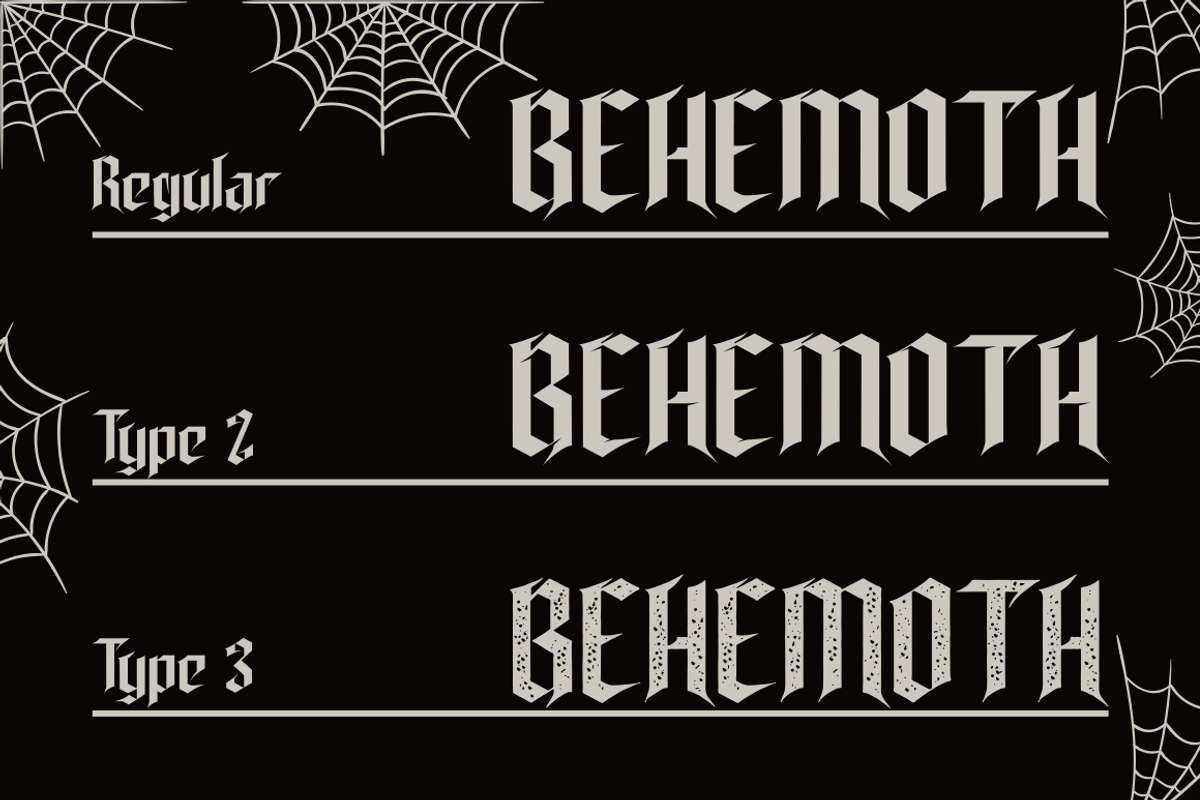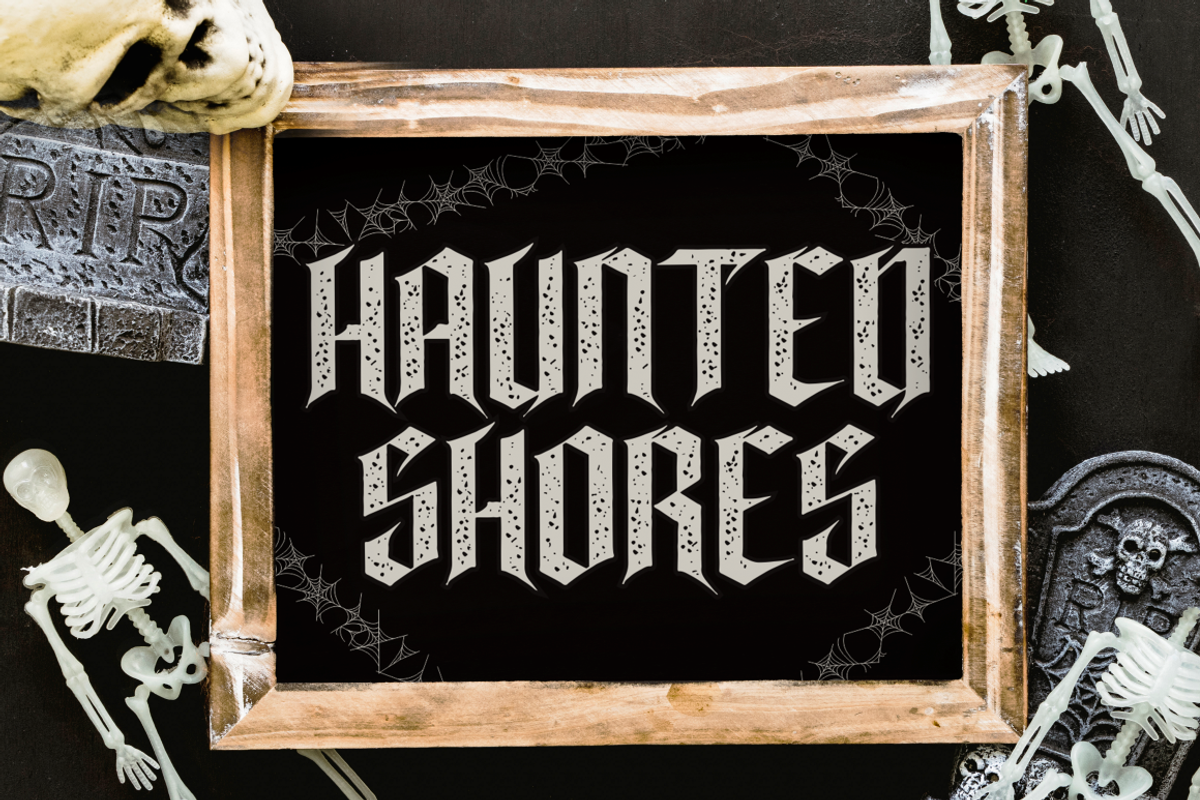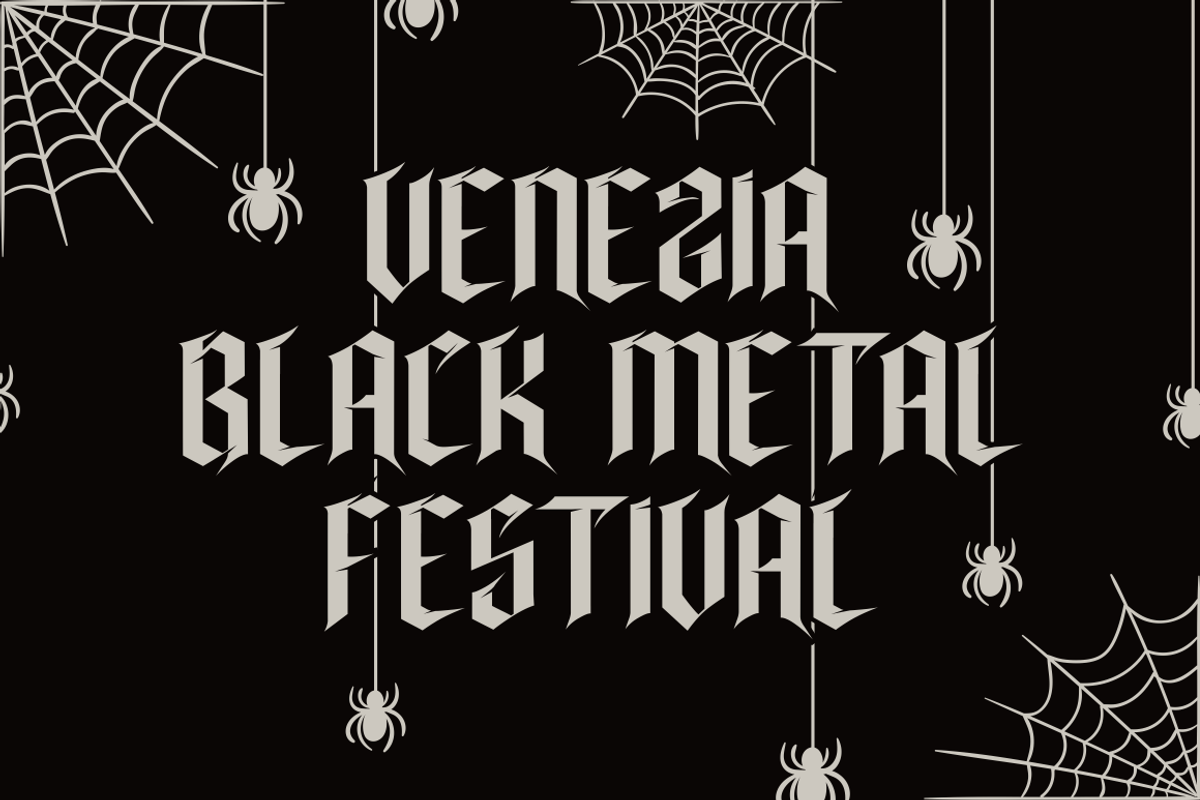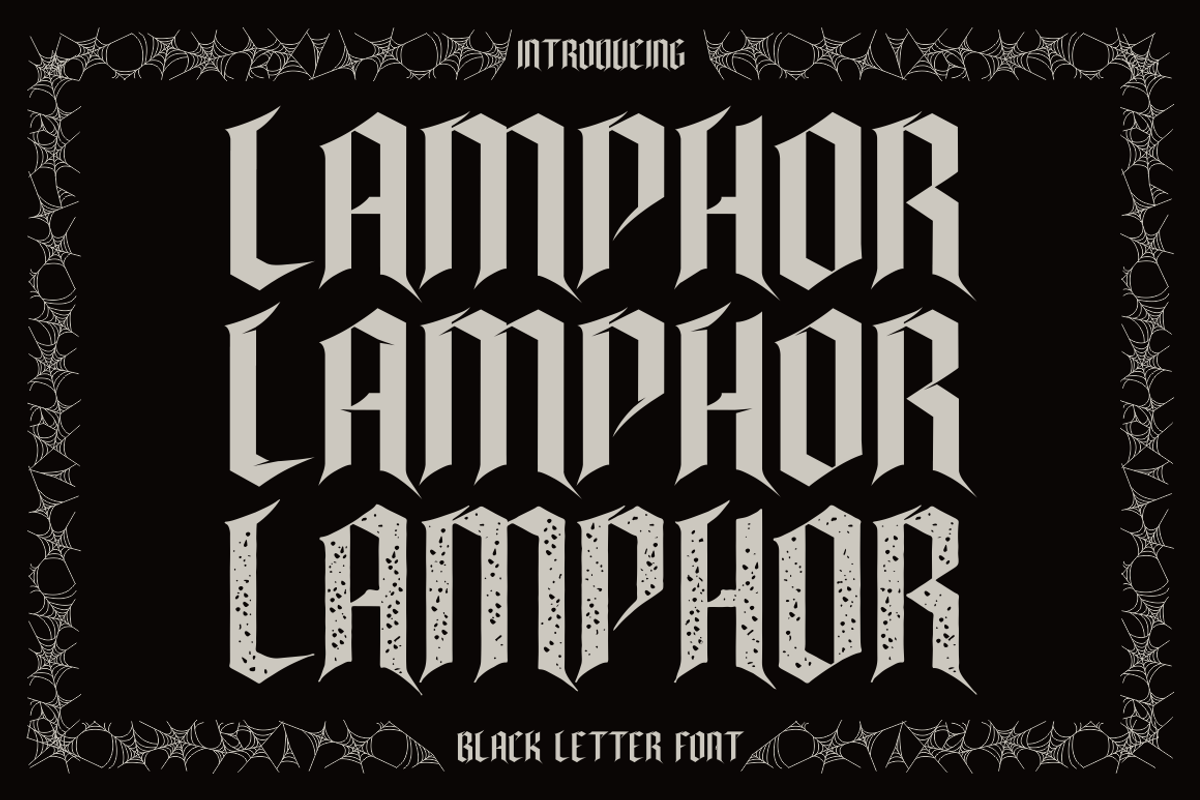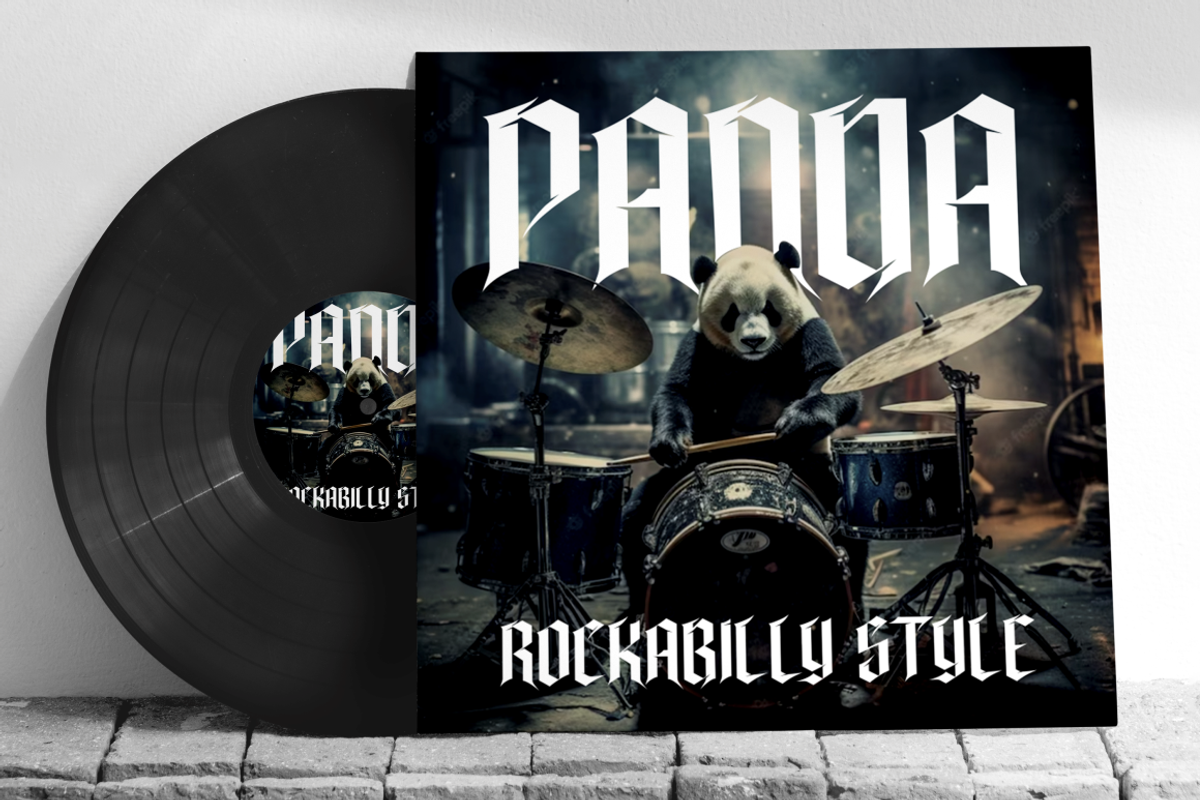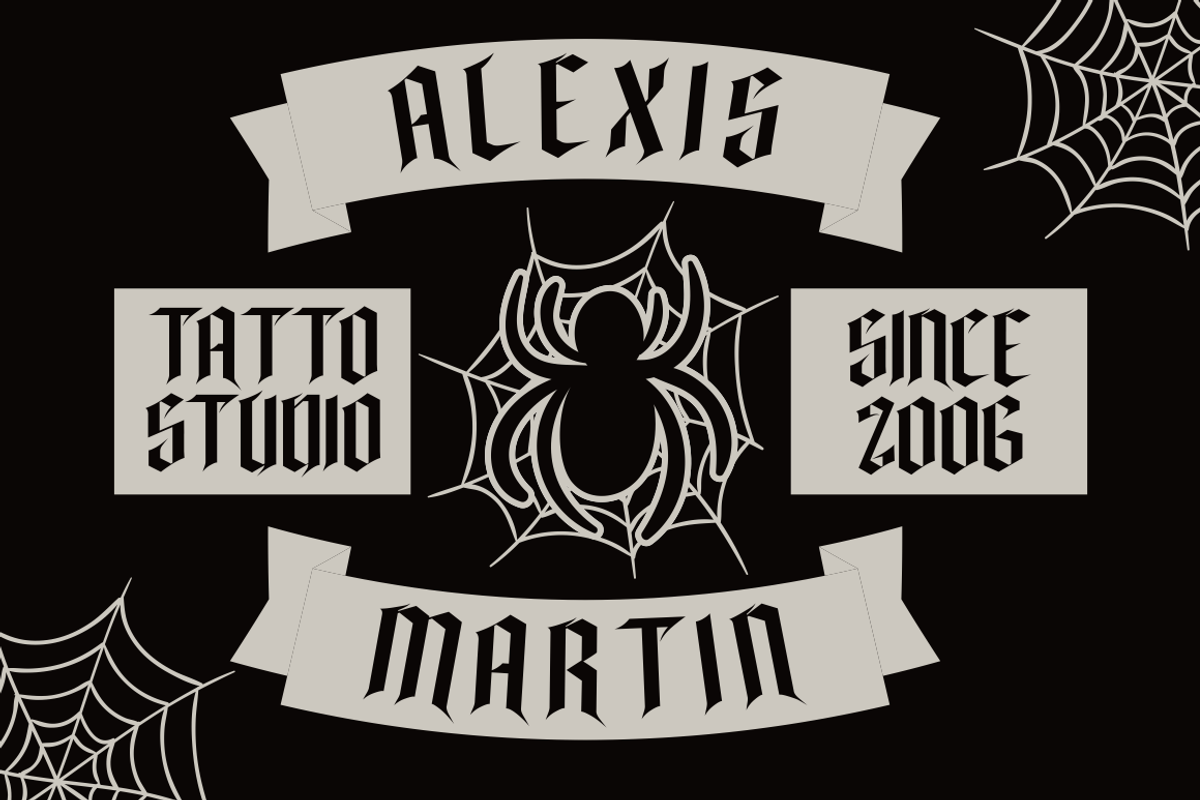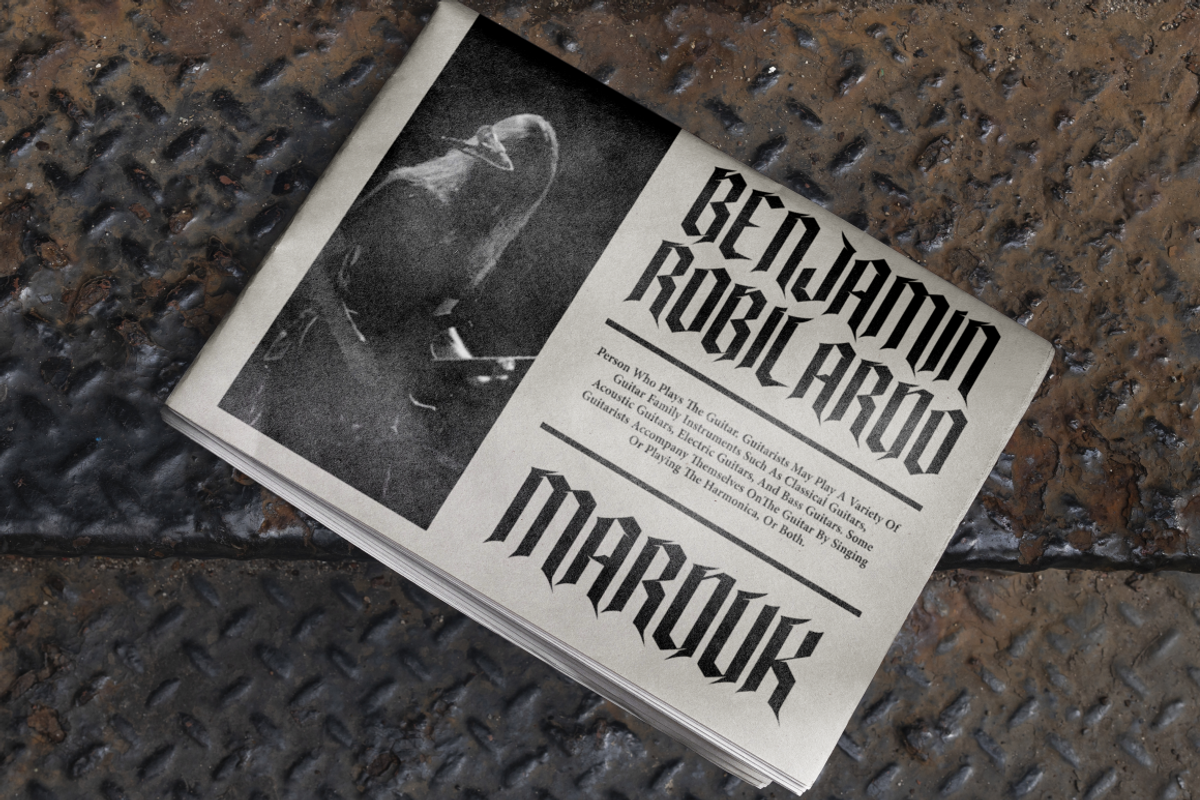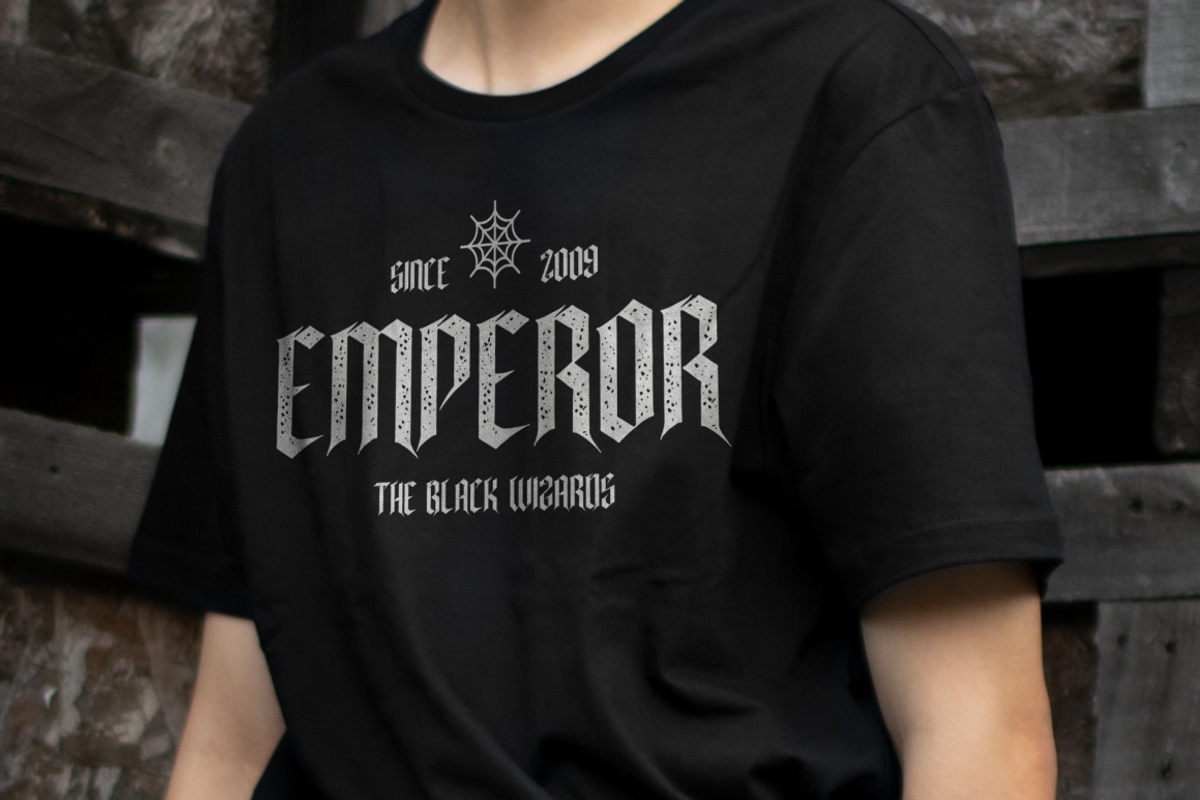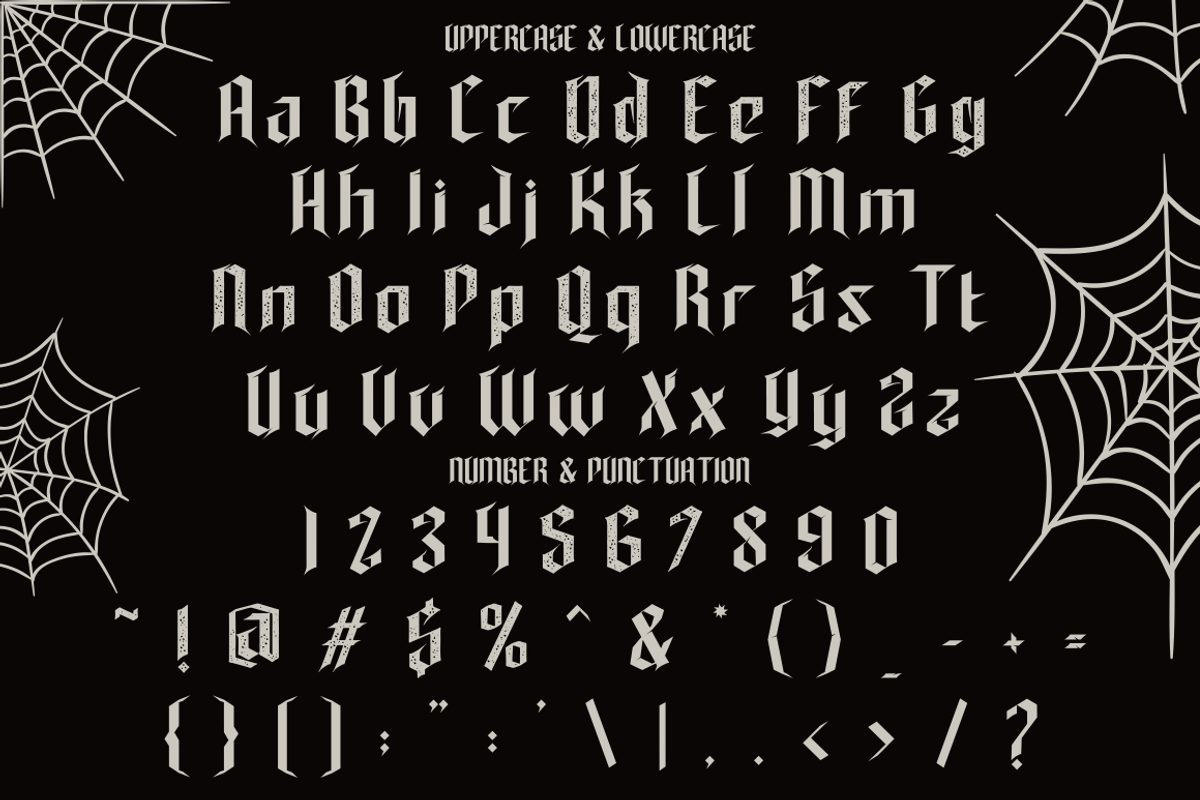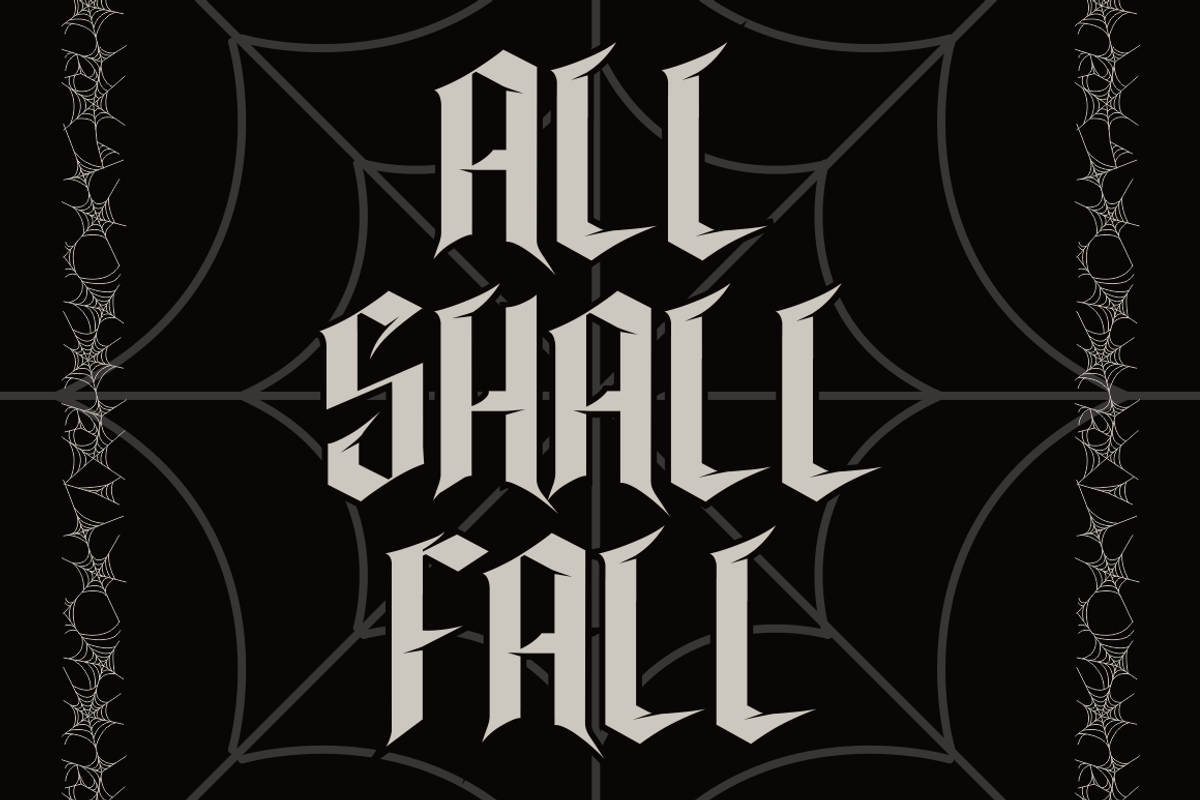
Lamphor - Black Letter Font
Lamphor - Black Letter Font exudes an eerie and intimidating aura with its sharp and pointed letterforms. This font is perfect for gothic or horror-themed designs, making it an ideal choice for projects seeking a menacing vibe. It offers three distinct versions: regular, display, and texture, allowing for versatile use in various design contexts. Lamphor finds its niche in gothic themes, logos, posters, titles, headlines, as well as within the realms of heavy music genres like black metal and death metal. Whether it's album covers, music posters, or anything that requires a sinister touch, Lamphor fits the bill perfectly.